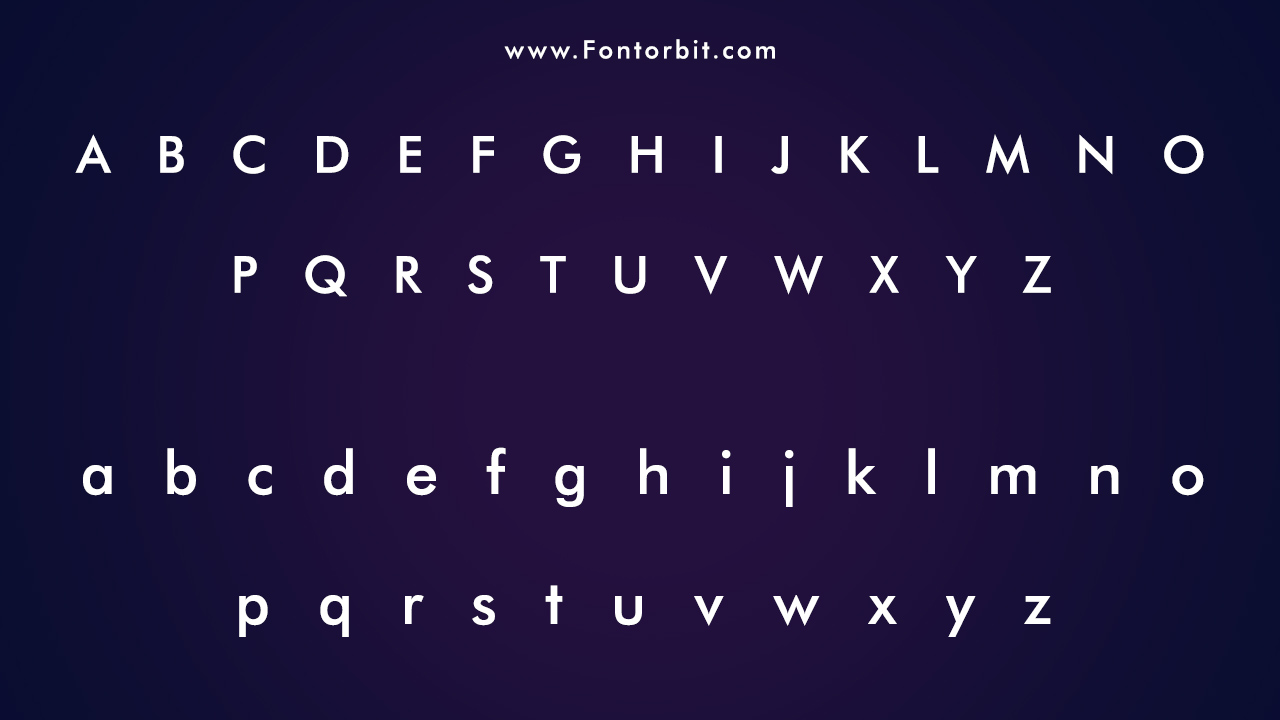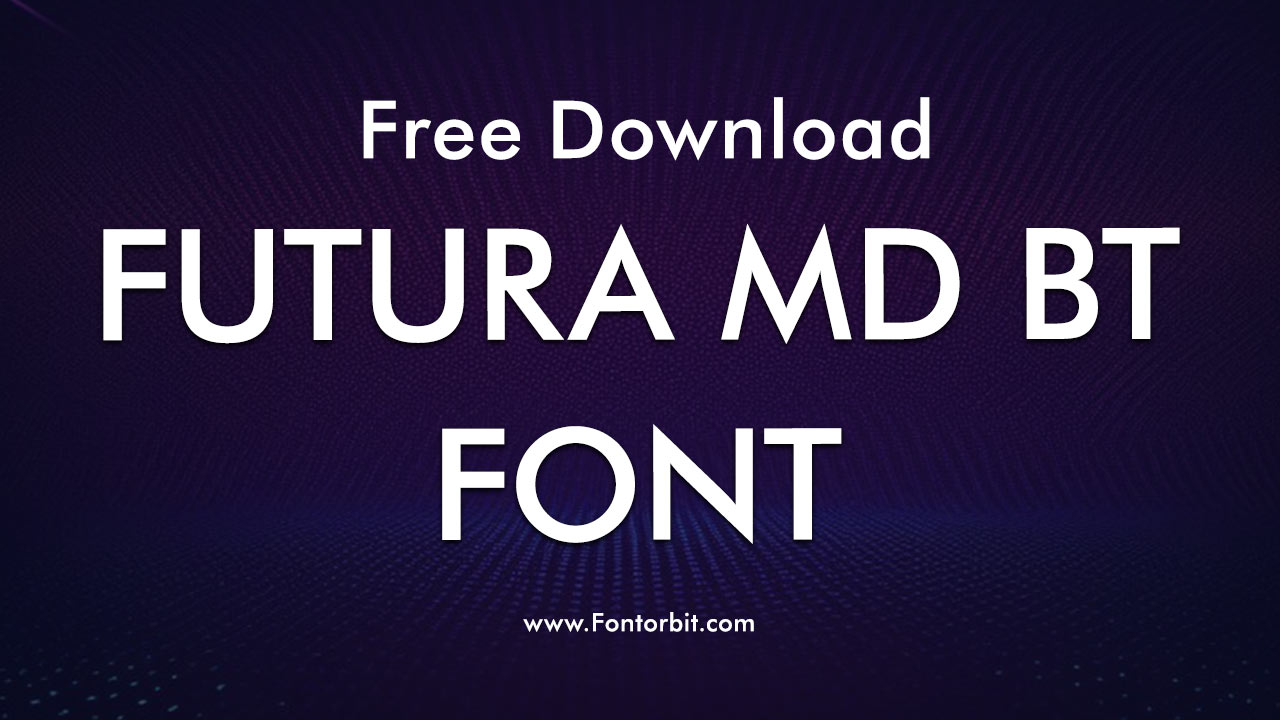
Futura MD BT is a modern and versatile sans-serif typeface known for its clean lines and geometric shapes.
Designed by Paul Renner and first published in the 1920s, it remains a staple in the typography world. This font belongs to the Futura family and is celebrated for its timeless appeal and readability.
Futura MD BT Family Includes
Futura MD BT is part of a broader family of Futura fonts, each bringing its unique touch to various design needs. Thanks to its precise and contemporary style, this font family is perfect for both digital and print applications.
- Futura Oblique
- Futura Book
- Futura Bold
- Futura Regular
- Futura Medium
- Futura Round
Notable Uses Of Futura MD BT
Futura MD BT is a versatile typeface celebrated for its clean and modern appearance. Its distinctive features make it suitable for various applications across different design fields:
- Business Cards
- Invitation Cards
- Gift Cards
- Template Designs
- Emblems and Graphics
- Quotes and Articles
- Banner Designs and Advertisements
- Social Media Posts
- Presentations
- Website Design
- Software and Website Development
- Design Software
Futura MD BT’s wide array of styles and weights ensures it can adapt to numerous design needs, from formal documents to creative projects.
Futura MD BT remains a significant typeface in the design world, and it is admired for its clarity and timelessness. Whether for professional use or personal projects, its modern geometric design ensures that it will continue to be a popular choice for designers.
2.What Is The Primary Use Of Futura MD BT?
It is used in various applications including branding, editorial design, and web design.
5.What Makes Futura MD BT Unique?
Its geometric shapes and clean lines give it a distinctive modern look.